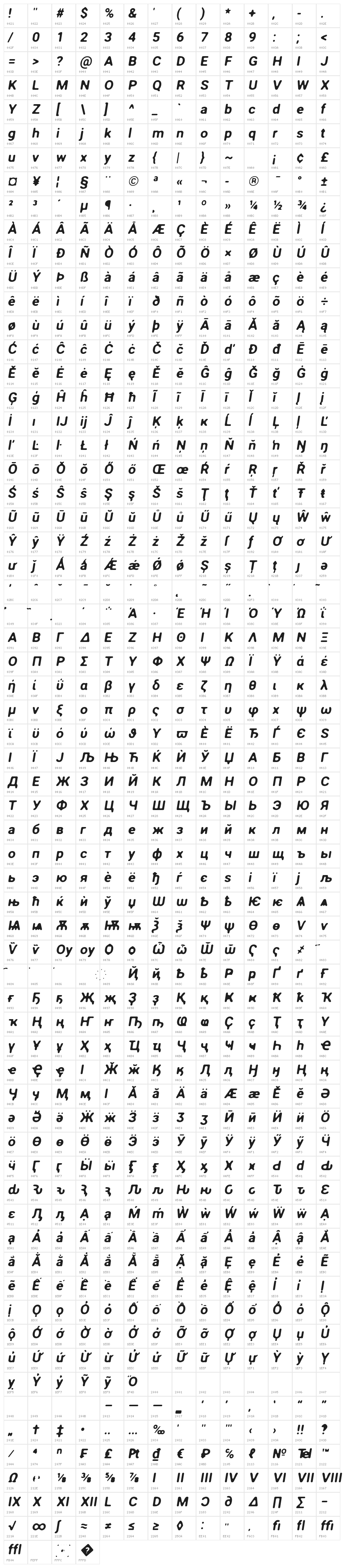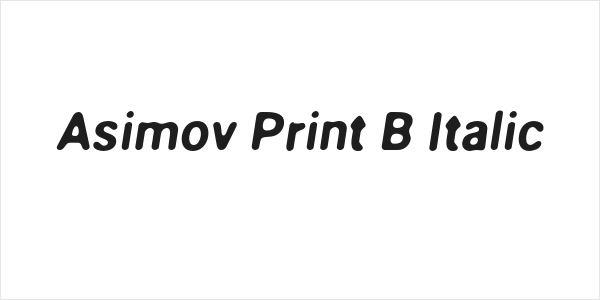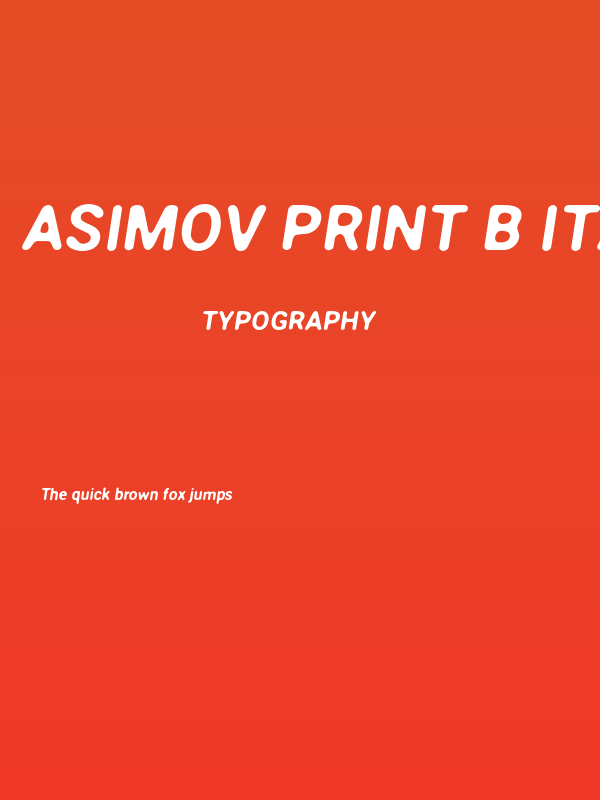
Asimov Print B Italic Font
Asimov Print B Italic Description
This font features a bold and rounded style with a playful yet professional appearance. The characters are slightly italicized, giving a sense of motion and dynamism. The rounded edges and uniform stroke width contribute to a friendly and approachable look. The font maintains a consistent weight throughout, ensuring readability across various sizes. Its smooth curves and lack of sharp angles make it suitable for projects that require a modern and clean aesthetic. The spacing between characters is balanced, providing a harmonious flow in text.
| Use Case | Headlines, Logos, Digital media |
| Proposed Projects | Ideal for branding, advertising, children's books, and digital media where a friendly and modern look is desired. |